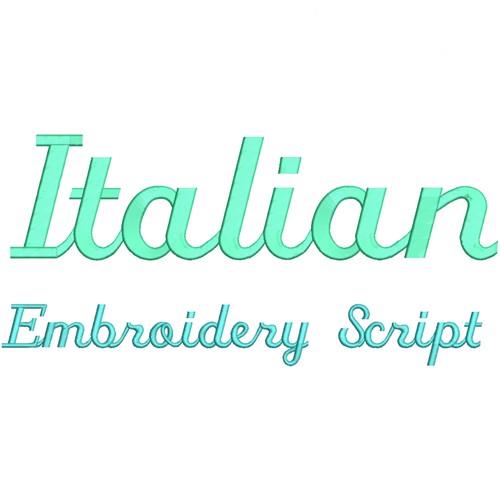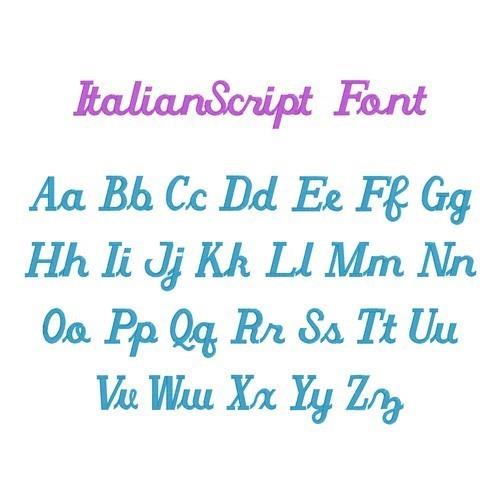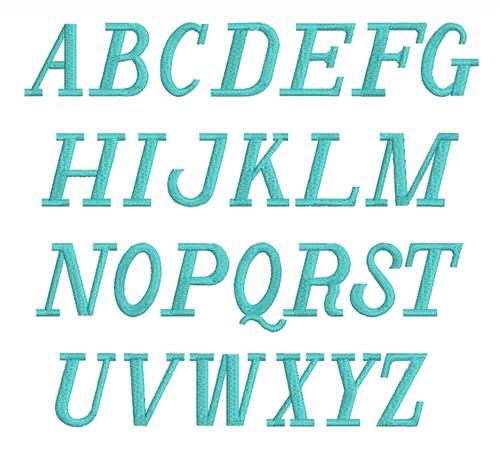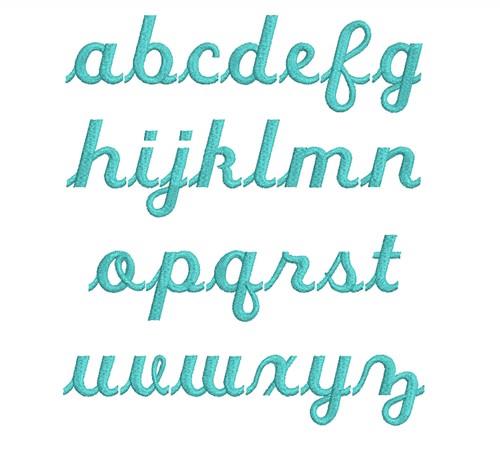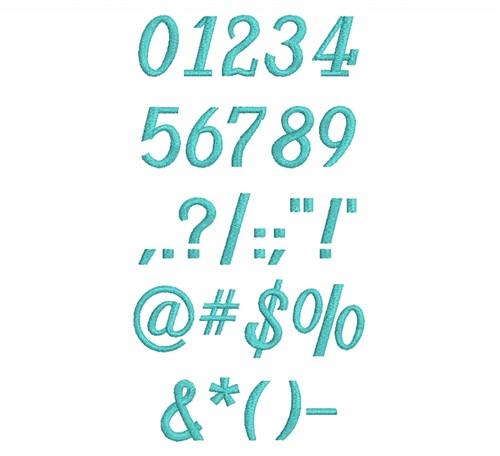
Maya Kreations is happy to present ItalianScript Font machine embroidery font which has Flowing script style embroidery font for stylish accents on table linens or home decor. Ideal for creating the word 'Italian' in soft curves. Available in PES, DST, and more formats. included. If you would like to view more embroidery fonts and alphabets please search our embroidery fonts page.